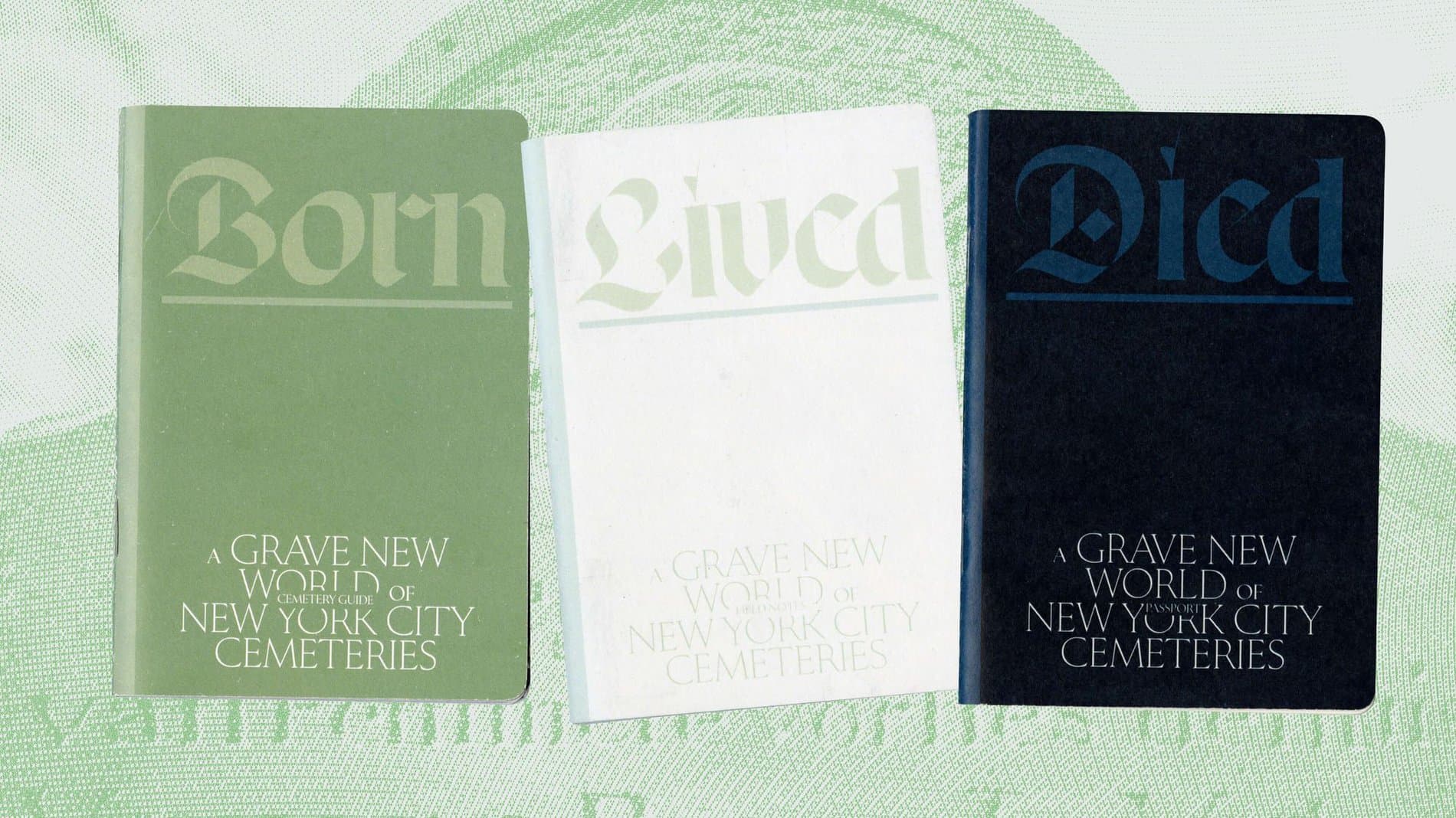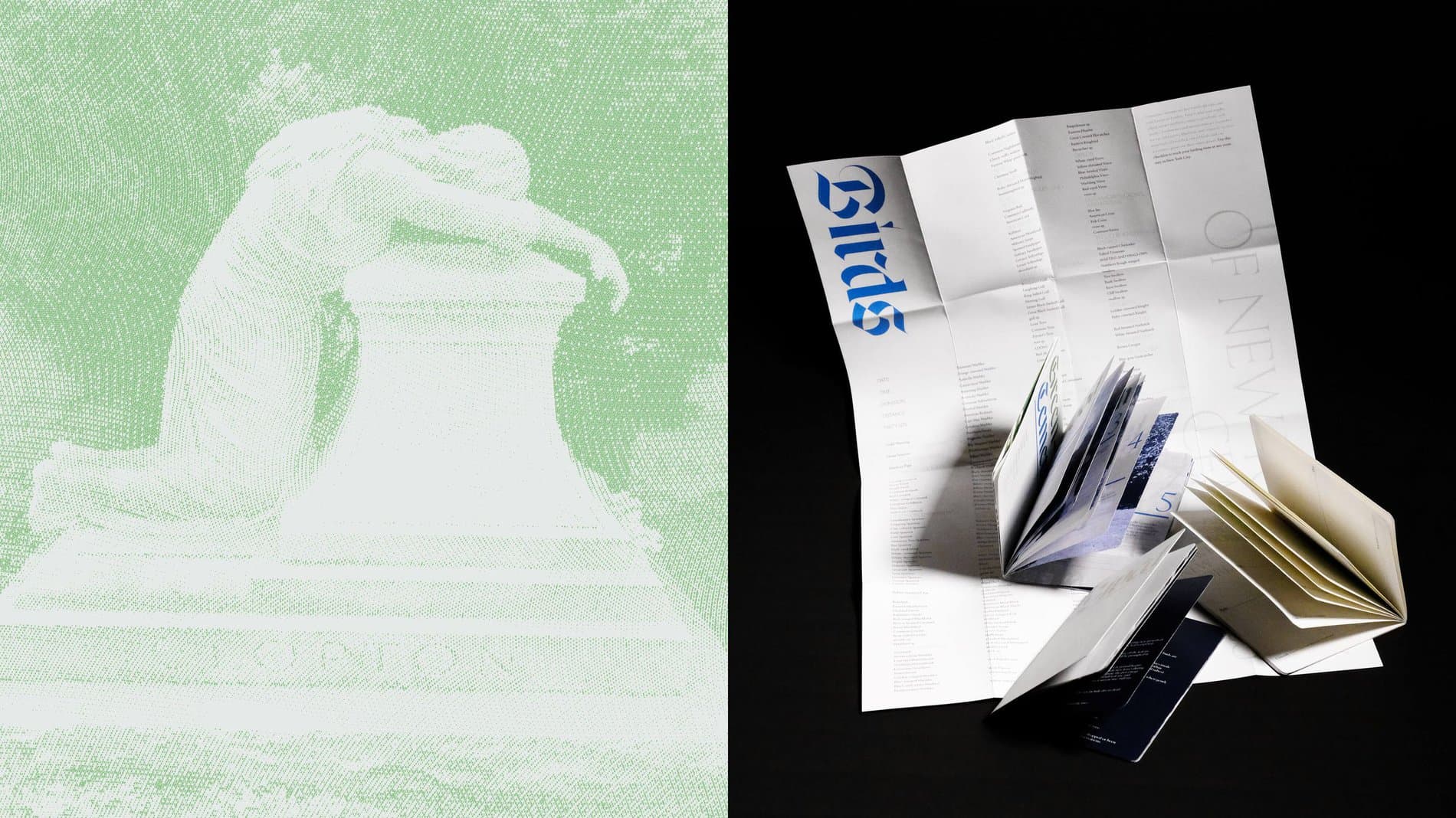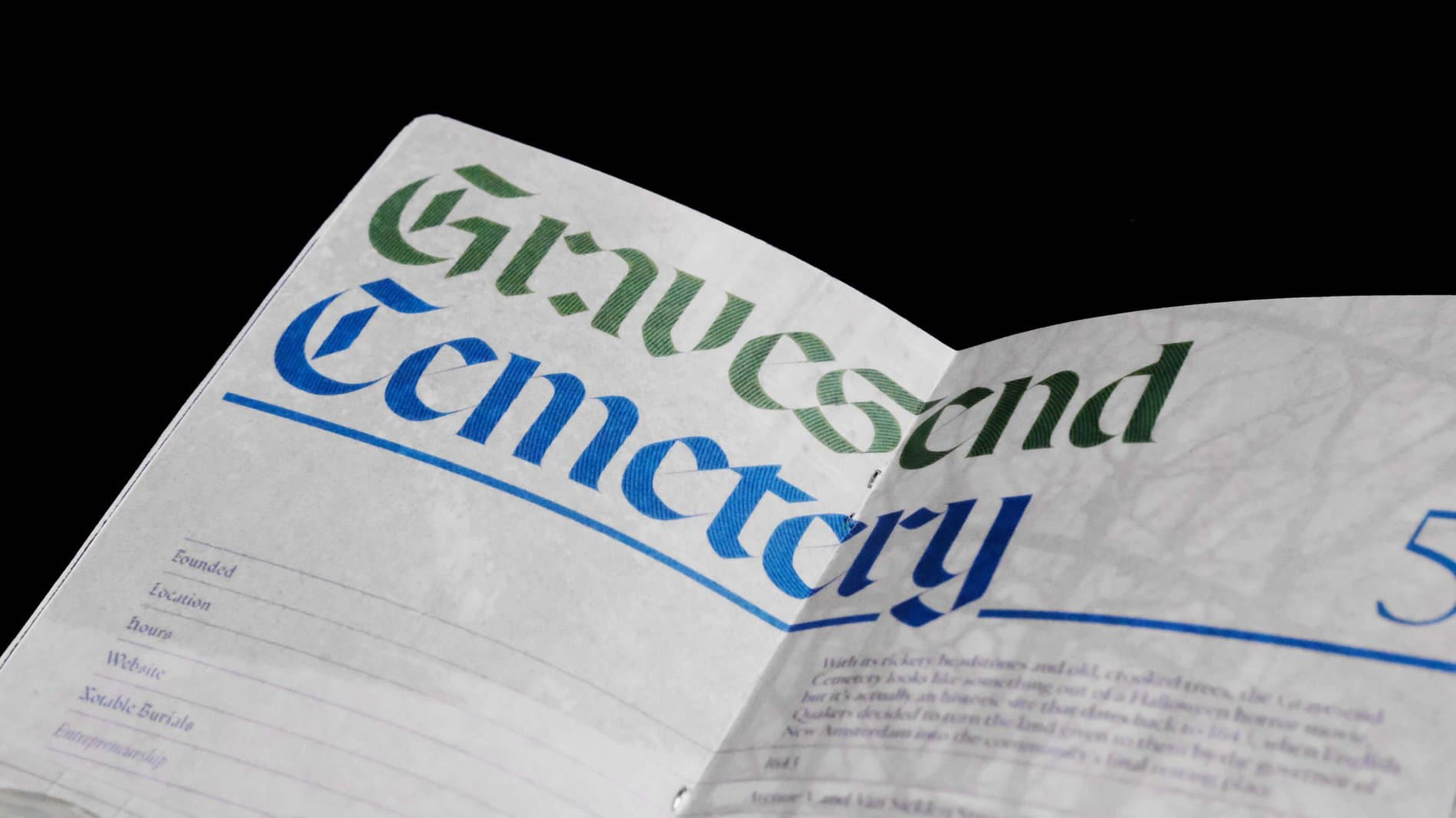
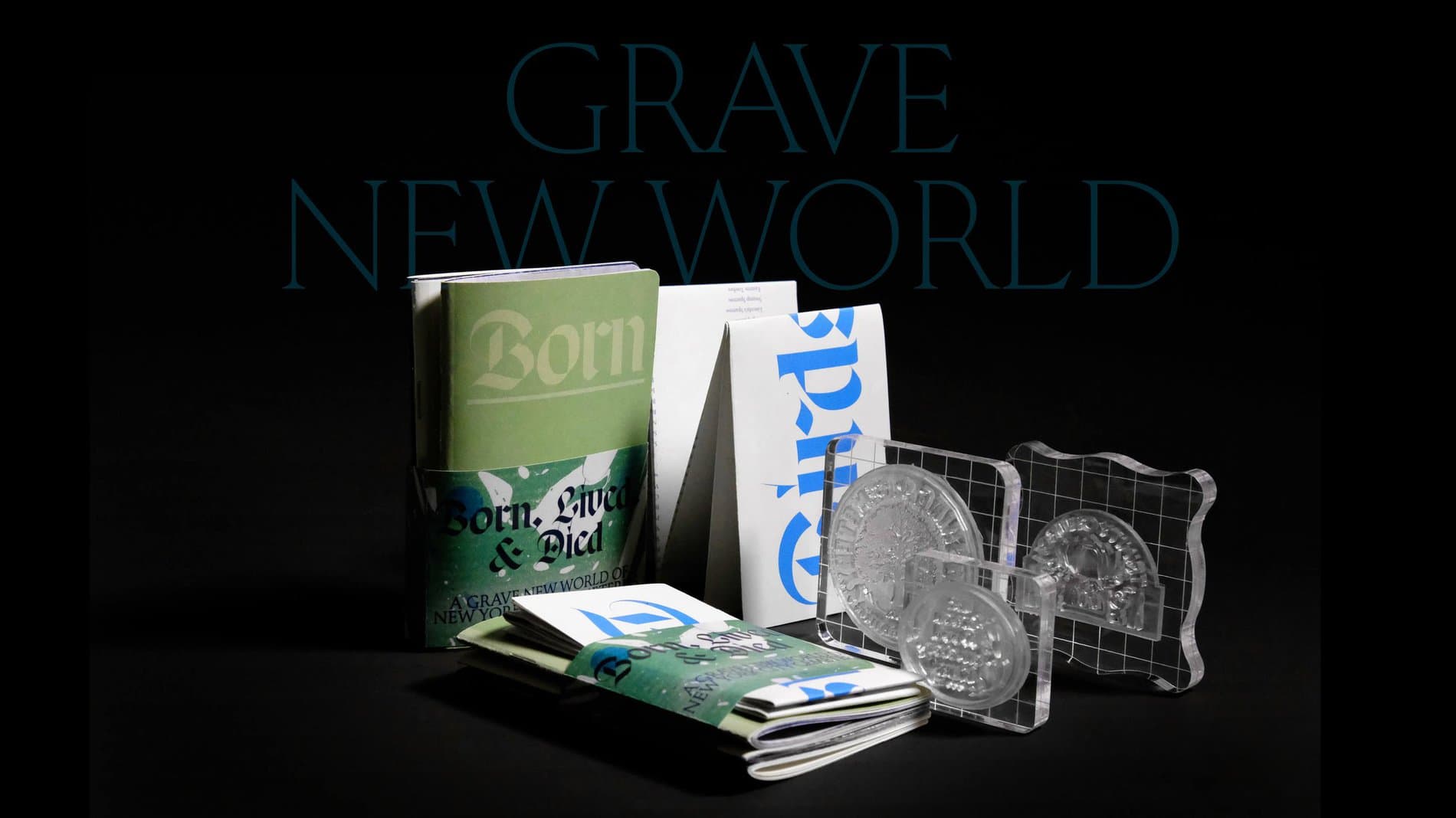
Cemeteries are a rich repository of engraved type specimens, making them a special place for type designers. New York City is abundant with beautiful cemeteries across all five boroughs, and members of our New York team have spent many an afternoon perusing the gravestones. During the warmer months, the hilly Greenwood Cemetery in the Greenwood Heights neighborhood of Brooklyn is a particularly good place for contemplative walks, birding, and even unconventional dates. It seems only natural, then, that NYC-based designer RavenMo recently debuted Grave New World, "a self-guided cemetery experience that sheds light on the neglected serendipity of cemeteries, which includes a cemetery passport, a field note, a cemetery guide, and a birding checklist."
"Cemeteries are sacred places for unique genealogical, historical, religious, cultural, and medical information [about the] people who lived in our community," says Raven. "They are also free public museums filled with ornate grave markers and other memorials and critical habitats for wildlife."
Sharp Type's contemporary blackletter Respira is an apt choice for this project. The clean design and minimal strokes make for a blackletter that is surprisingly free of noise, harking back to the style's original text settings even though it works best as a display face. The design of Respira is also influenced by deterioration, which makes its application in a grave yard kit all the more fitting. When Lucas Sharp came across the aged Spanish manuscripts that served as the original inspiration, the letterforms appeared to have a stencil-like quality; only later, when he came across the same letterforms in an antique shop, did he realize that superfine hairlines existed.
Engraved letterforms have served as primary influences for a number of our typefaces. Translating this materiality and texture and into digital forms becomes an act of osmosis that is challenging but makes for stronger letterforms in the end. Grave New World is a full circle moment for Respira. We couldn't be happier to see this typeface in the real world, serving as a guide to these sacred places from which we've drawn so much inspiration.